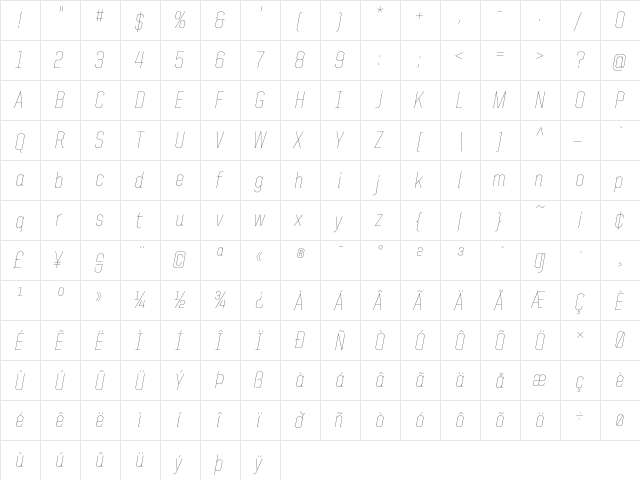
United Italic SemiCond Thin Font Preview
| Foundry | House Industries |
| Designer | Tal Leming |
Design Context for United Italic SemiCond Typeface
United Italic SemiCond is a composed and adaptable typeface that performs quietly and consistently across a wide range of design contexts. Its italic angle brings a sense of urgency and motion to the letterforms. Its slender proportions lend an understated elegance to any composition. The condensed width makes it efficient for tight spaces without sacrificing legibility.
Pro Tip: Try United Italic SemiCond for annotation and caption copy alongside an upright companion — the contrast in angle creates a dynamic but ordered typographic system.